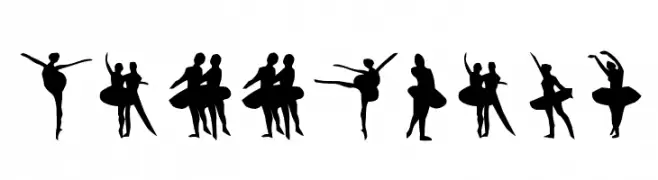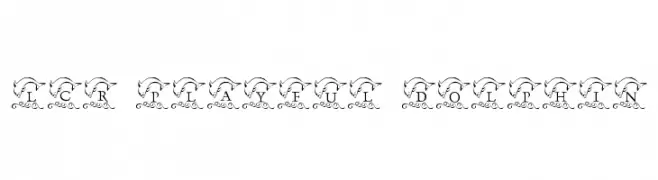
A sleek, modern italic font with thin strokes and rounded edges.
A playful, dot-connected font with a whimsical and friendly style.
A bold, angular font with a modern and decorative style.
An artistic font featuring human figures forming each character.
A bold, vintage-inspired font with a modern twist, perfect for impactful designs.
A collection of dancer silhouettes representing characters in artistic poses.
An abstract, artistic font with complex geometric and organic letterforms.
A bold, decorative font with characters integrated into 3D 'VOTE' boxes.
A whimsical font with bold letters and integrated penguin illustrations.
A whimsical serif font with playful dolphin illustrations above each character.